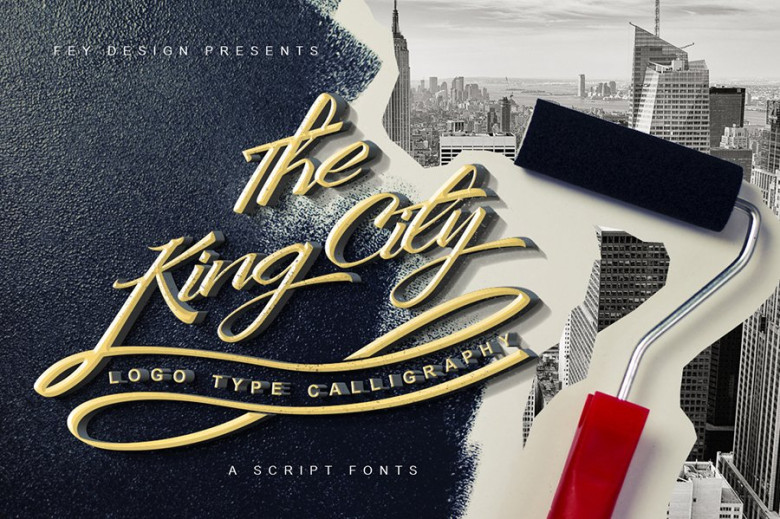
The King City Font
The-King-city is modern calligraphy typeface that is unique and elegant. Can be used for various purposes, such as wedding invitations, event, t-shirt, logo, badges, sticker, etc.